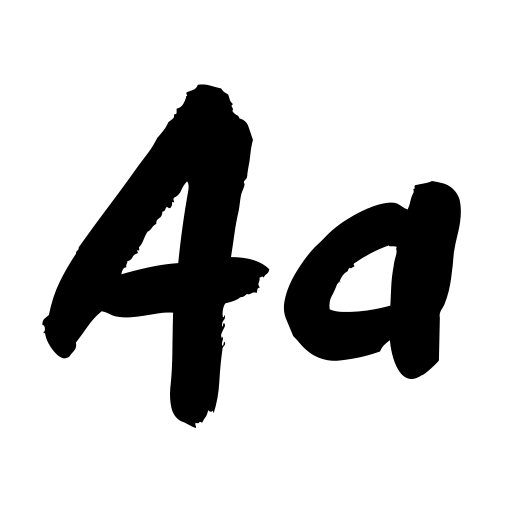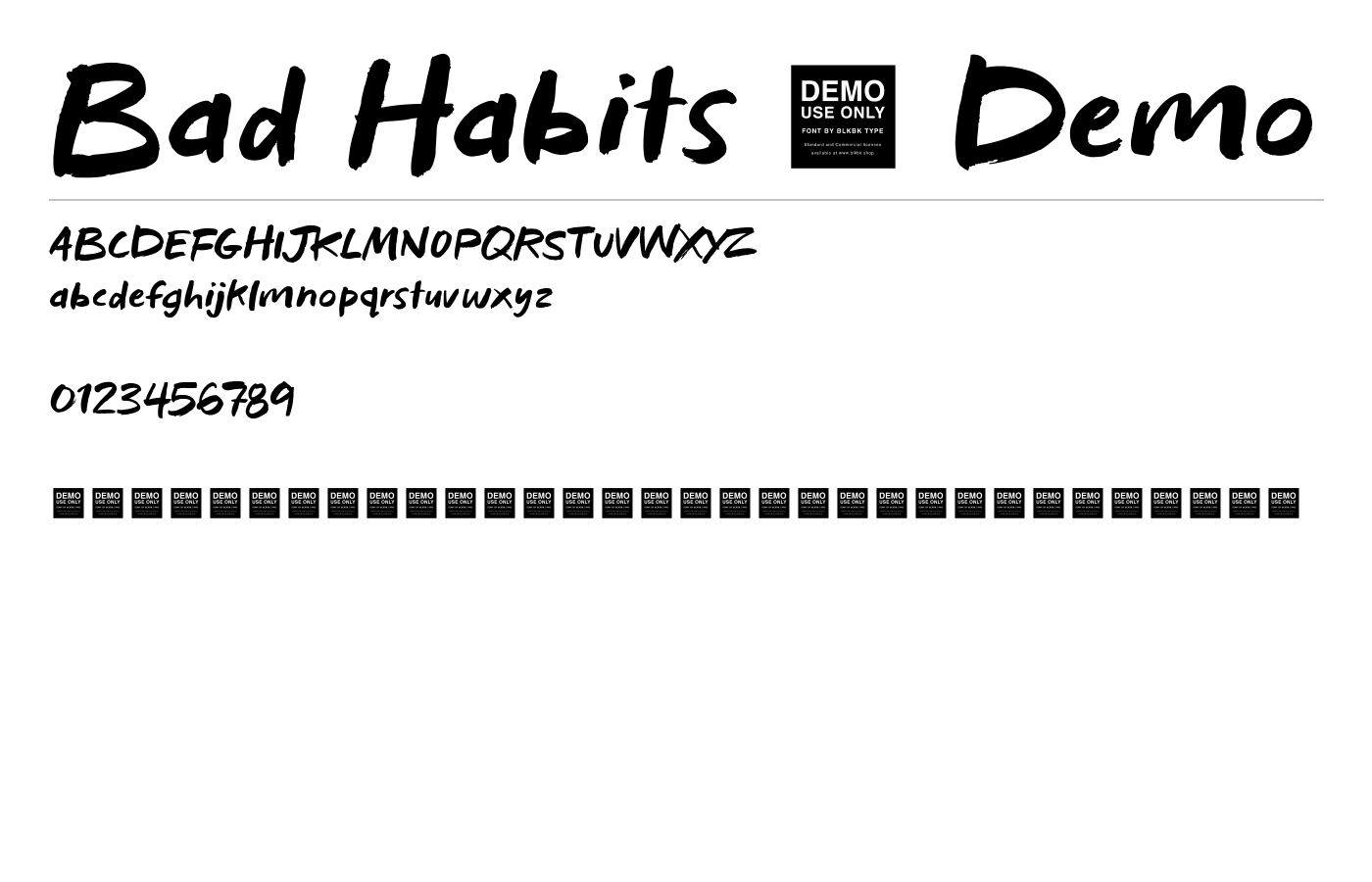
Bad Habits is a lively, casual handwritten font with a bold, brushstroke style that feels energetic and informal. Its irregular, slightly textured letters give it a friendly, approachable vibe, ideal for creative projects, posters, and branding that want a personal, dynamic touch. This font works well where a playful, authentic handwritten look is desired, adding character and warmth to designs.
Bad Habits - Demo Font
About Bad Habits - Demo Font